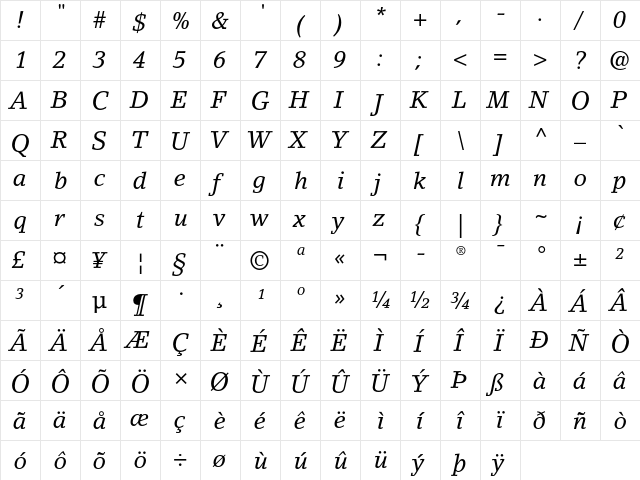
Lino Letter Italic Font Preview
Lino Letter Italic
Design Context for Lino Letter Typeface
Lino Letter is a composed and adaptable typeface that performs quietly and consistently across a wide range of design contexts. The slanted form adds forward momentum and visual energy.
Pro Tip: Try Lino Letter for annotation and caption copy alongside an upright companion — the contrast in angle creates a dynamic but ordered typographic system.